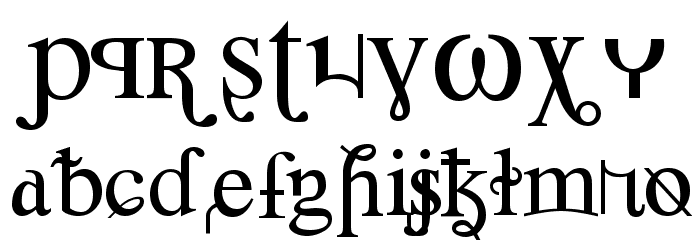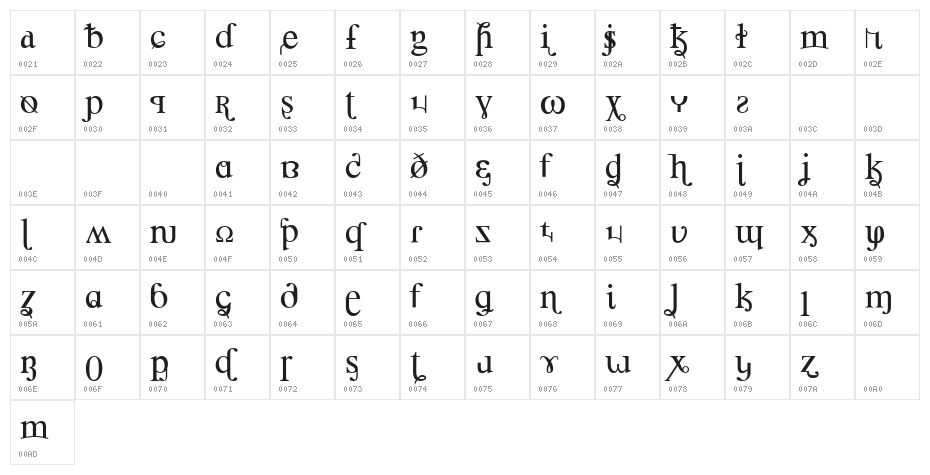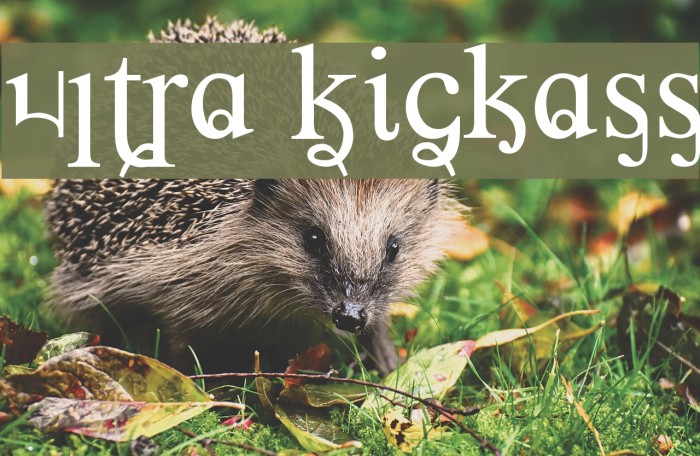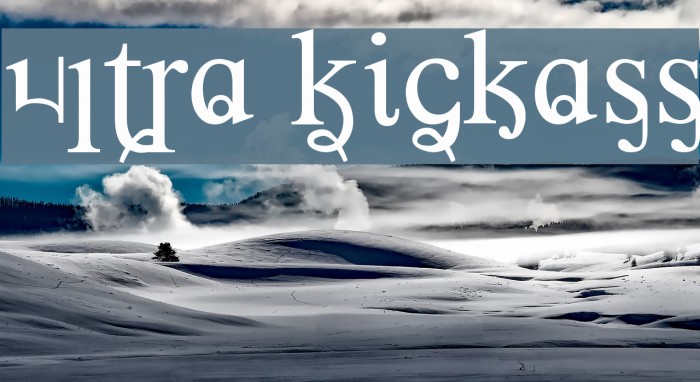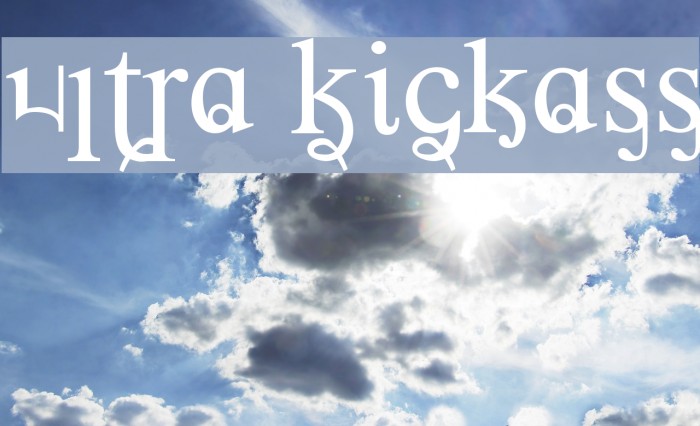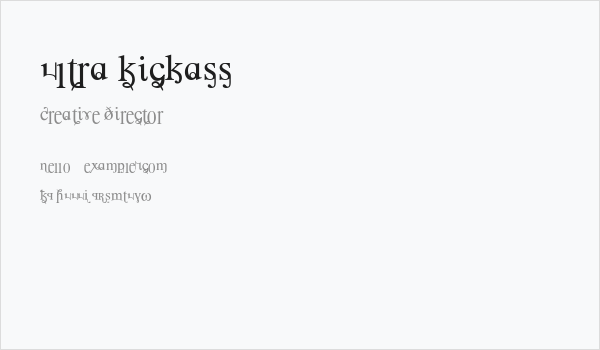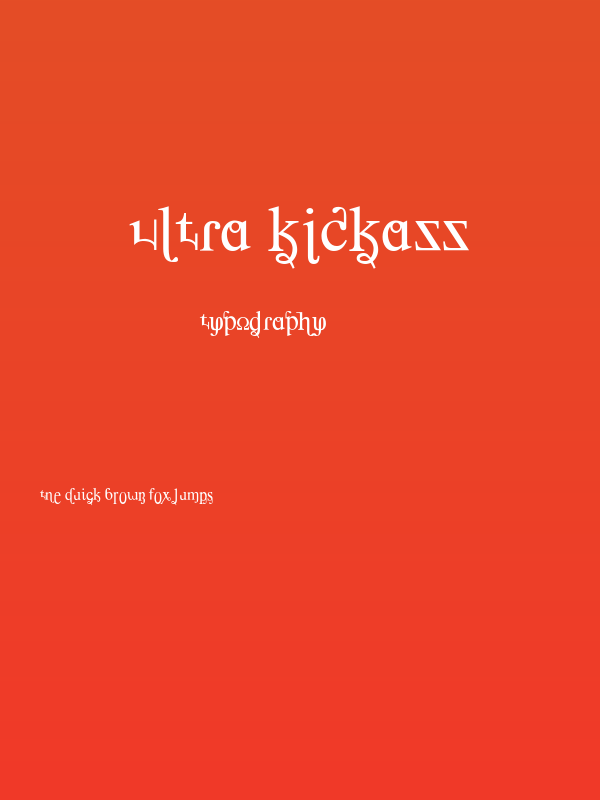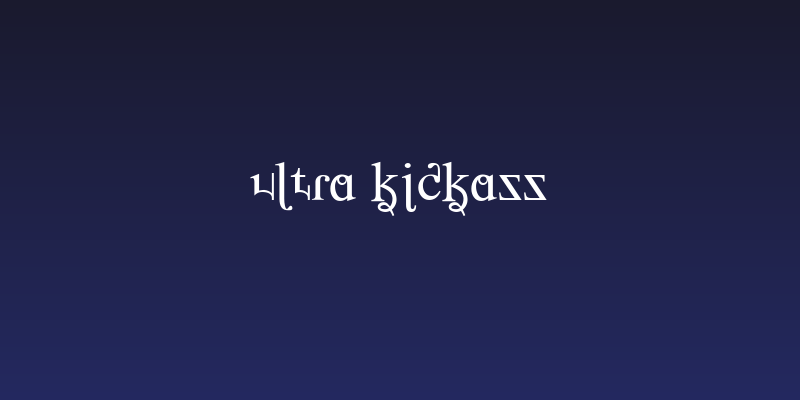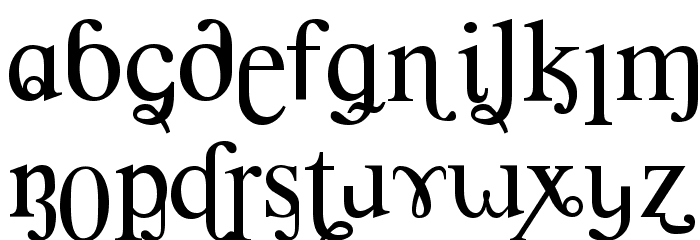
Ultra Kickass Font
Ultra Kickass Description
This font exhibits a unique blend of modern and decorative styles, characterized by its bold, artistic flair. The characters feature intricate curves and distinctive shapes, creating a sense of movement and dynamism. The uppercase letters are particularly striking, with exaggerated serifs and playful loops that add a whimsical touch. The lowercase letters maintain a consistent style, with smooth transitions and balanced proportions. The numerals and special characters complement the overall design, ensuring versatility across various applications. This font's artistic nature makes it suitable for projects that require a bold statement.